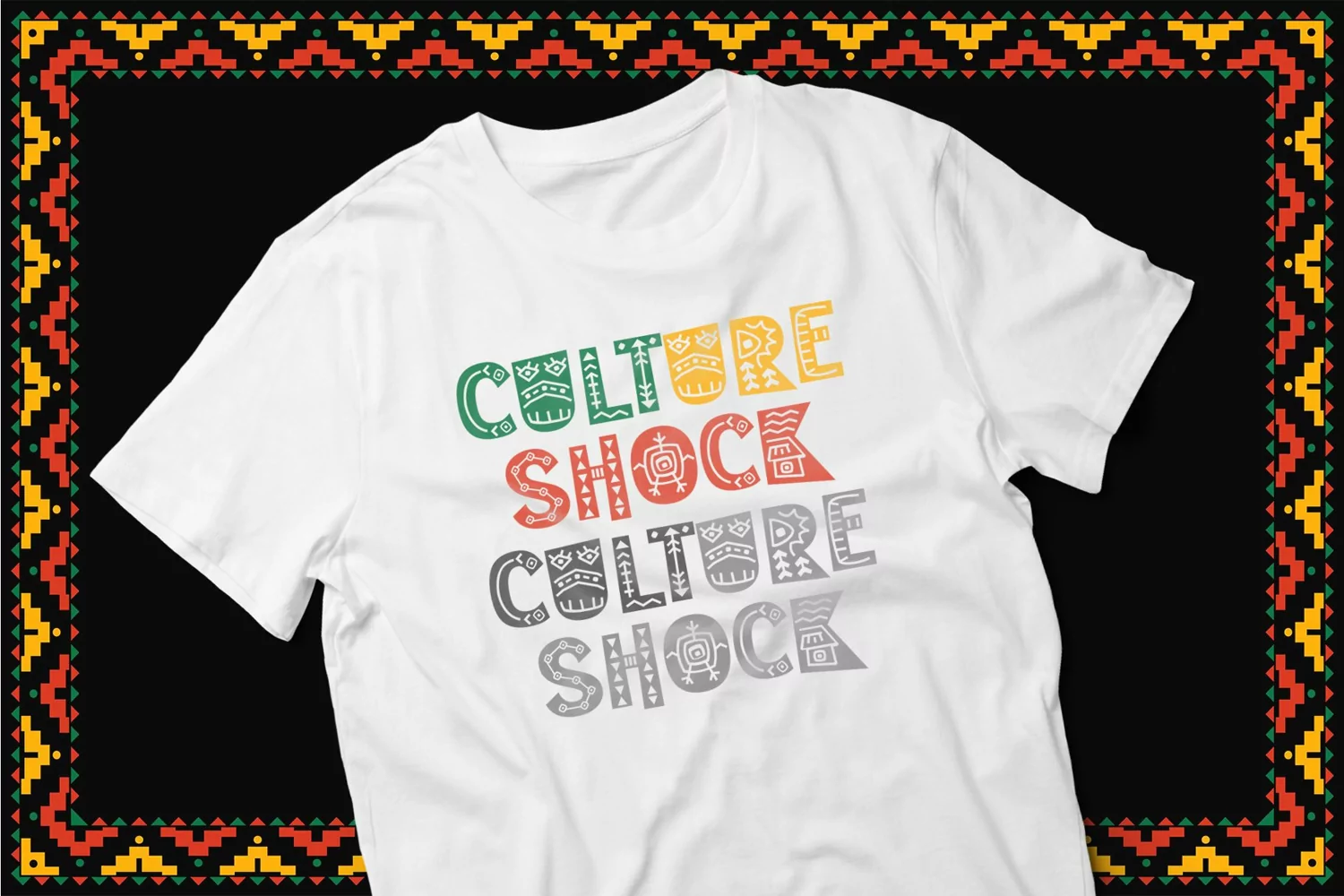
Nahawo is a linear typeface decorated with ethnic patterns. The letters of the display typeface are decorated with classic ornaments inspired on ancient ages. The typeface is presented in two styles decorative and solid. Combine them to get your unique design